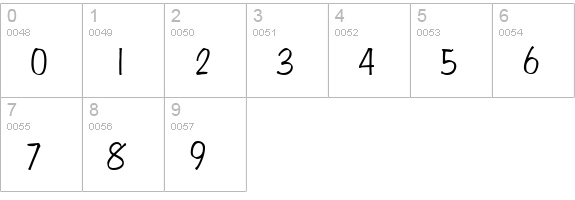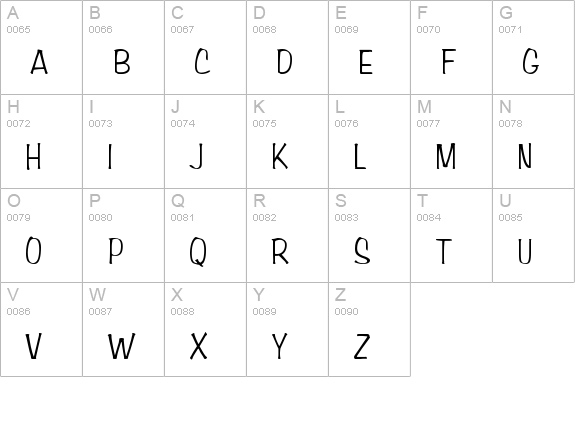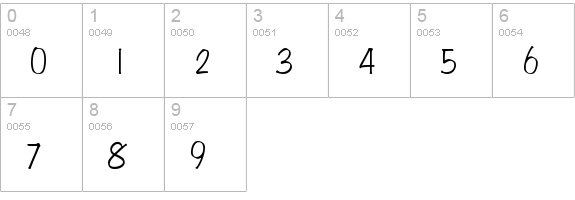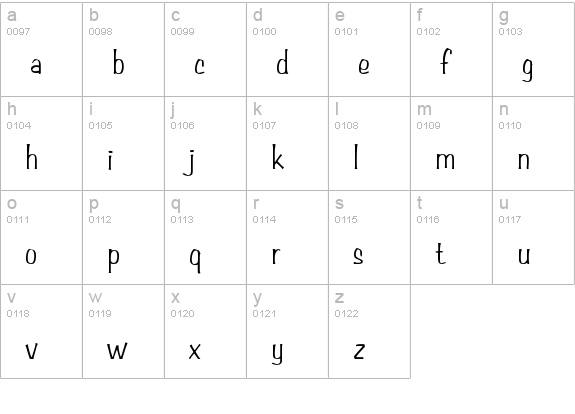
AprilURWTNor Font Details
AprilURWTNor is a beautiful and elegant font that exudes sophistication and style. Its clean lines and modern design make it perfect for a wide range of design projects, from branding to invitations to web design. The versatility of this font allows it to be used in both professional and creative settings, adding a touch of class to any project. What sets AprilURWTNor apart is not just its stunning design, but also the fact that it is available for free download at FontsMarket.com. This means that you can easily access this high-quality font without having to worry about any additional costs. Whether you are a designer looking to elevate your work or simply someone who appreciates good typography, AprilURWTNor is a must-have addition to your font collection. Download AprilURWTNor for free today at FontsMarket.com and discover the endless possibilities that this font can bring to your projects. Elevate your designs with the timeless elegance of AprilURWTNor and make a lasting impression on your audience.